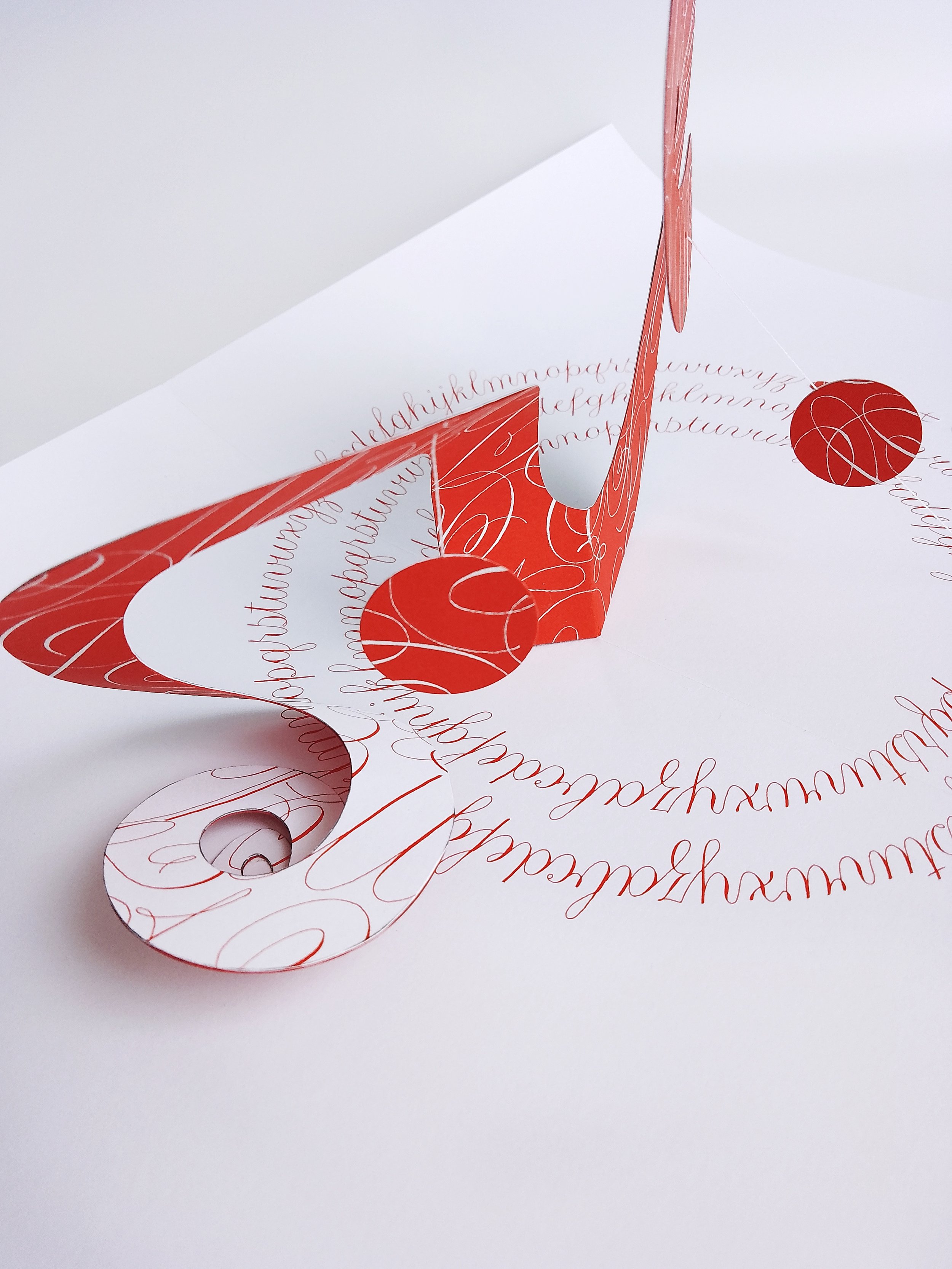
TITLE | Why Not
In the process of creating art, and challenging my limits, I often ask myself 'Why not?' This question became the driving force behind my exploration of new forms, combining the delicate flow of copperplate script with the dynamic, unfolding nature of pop-up art.
From ideation to exploration, I embraced patience and the unknown through countless shape trials that led me back to the starting point. For me, this work represents boundless possibilities and the most valuable aspect of creation -- the beauty of the unknown.
MEDIUM | Cardstock, gouache & thread
Elif is a multi-disciplinary artist whose work delves into the beauty in life, capturing its depth and complexity. She brings a different perspective to her art, blending technical precision with with emotional depth. After discovering calligraphy in 2020, Elif formed a powerful connection with her creative side, experiencing a transformative shift that became a defining moment in her life's journey. Whether through intricate bookbinding, calligraphy, or pop-up designs, her creations are not only artistic expressions but also invitations for others to reflect on their own experiences and embrace their individual journeys.